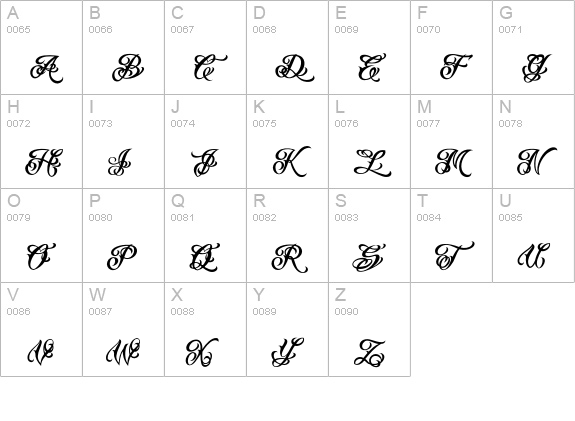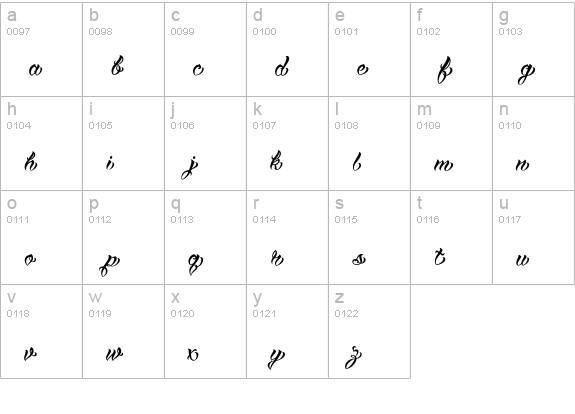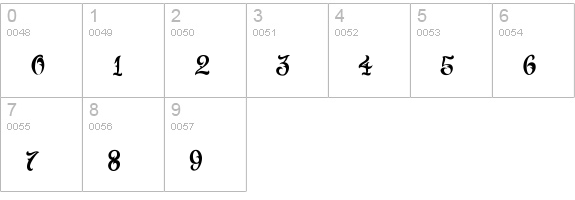
VTCTattooScriptTwo Font Details
Introducing VTCTattooScriptTwo font, the perfect choice for adding a touch of edgy elegance to your designs. This font exudes the boldness and creativity of tattoo art, making it ideal for projects that require a unique and captivating look. With its intricate and flowing script style, VTCTattooScriptTwo font captures the essence of traditional tattoo lettering, while infusing it with a modern twist. Its carefully crafted details and smooth curves give each character a sense of authenticity and depth, making your text truly stand out. What makes VTCTattooScriptTwo font even more remarkable is that it is free. Yes, you read that right - this extraordinary font is freely available to download at FontsMarket.com. This means that you can enhance your designs with this stunning typography without having to worry about breaking the bank. Whether you're working on tattoo designs, branding projects, posters, or any creative endeavor that calls for a striking and original font, VTCTattooScriptTwo font is here to elevate your work to new heights. Its versatility allows it to be used in a variety of contexts, from vintage-inspired themes to contemporary designs. So why wait? Download VTCTattooScriptTwo font for free at FontsMarket.com and unleash your creativity like never before. Embrace the art of tattoo-inspired typography and let this font transform your designs into works of art that leave a lasting impression.